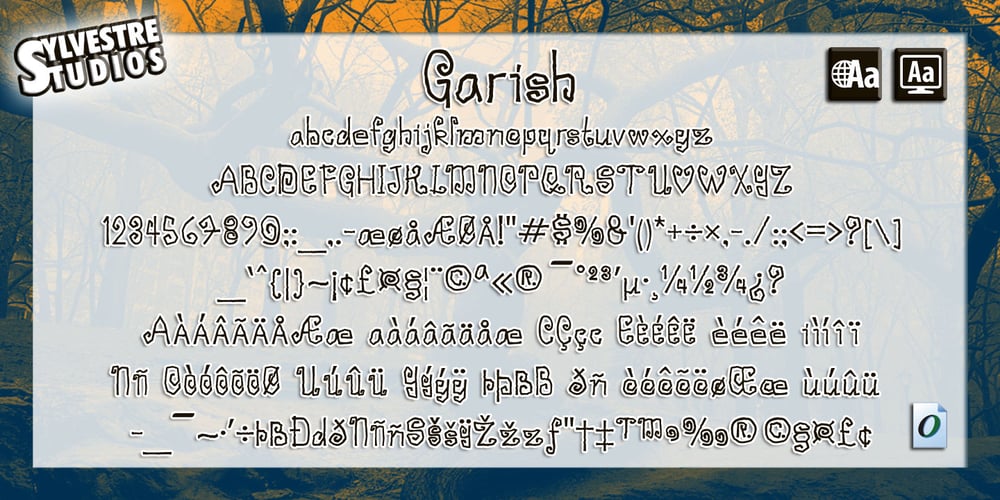
Garish Font Family was designed by Mick Sylvestre and published by Sylvestre Studios. Garish contains 1 styles and family package options. Garish was inspired by how trees curl and twist their roots into the ground. At how they stretch up desperate to scratch up into heaven.